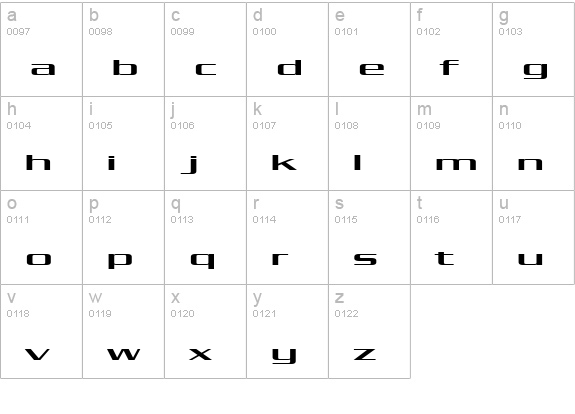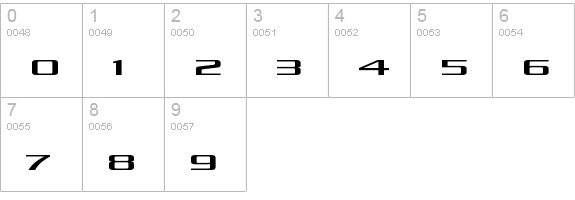
Kubra_medium Font Details
Introducing Kubra_medium font, a versatile and elegant typeface that exudes sophistication and modernity. With its clean lines and balanced proportions, Kubra_medium is perfect for a wide range of design projects, from branding to editorial design. This font offers a unique blend of classic and contemporary elements, making it a versatile choice for both print and digital applications. Whether you're designing a logo, creating a poster, or crafting a website, Kubra_medium will add a touch of refinement to your work. Best of all, Kubra_medium is available for free download at FontsMarket.com. So why wait? Add this stylish and eye-catching font to your collection today and elevate your designs to the next level.